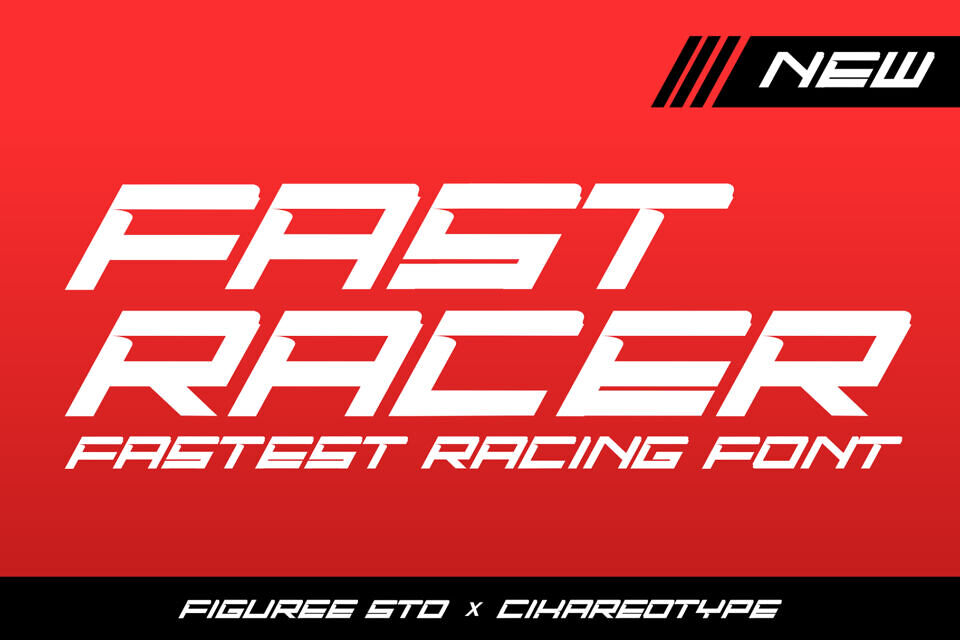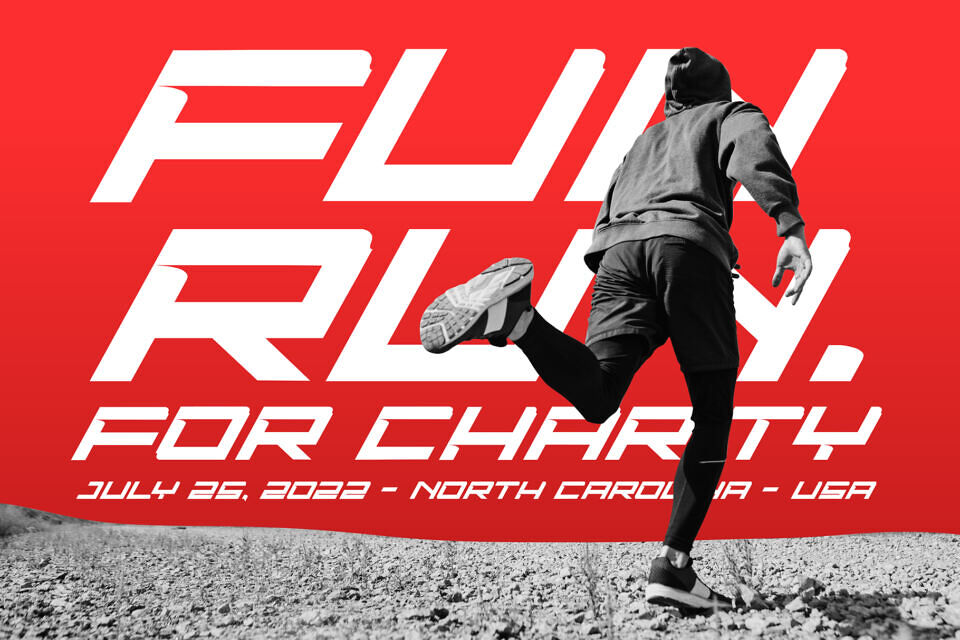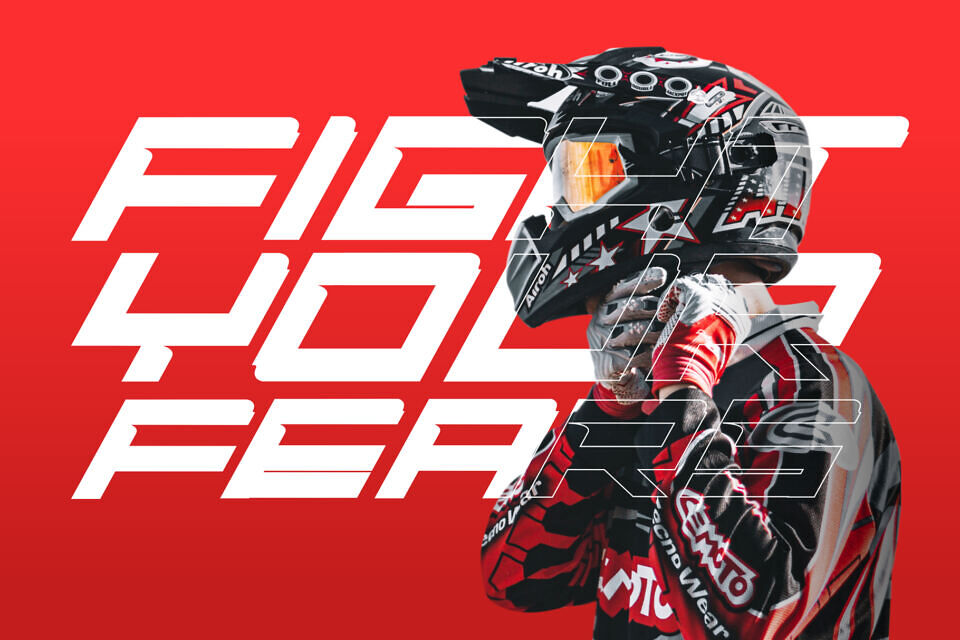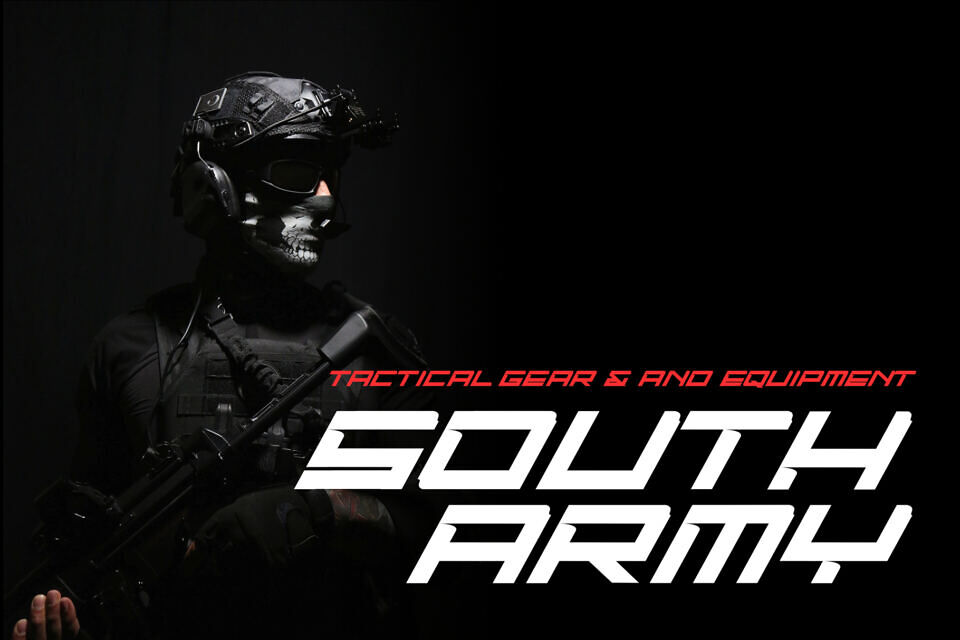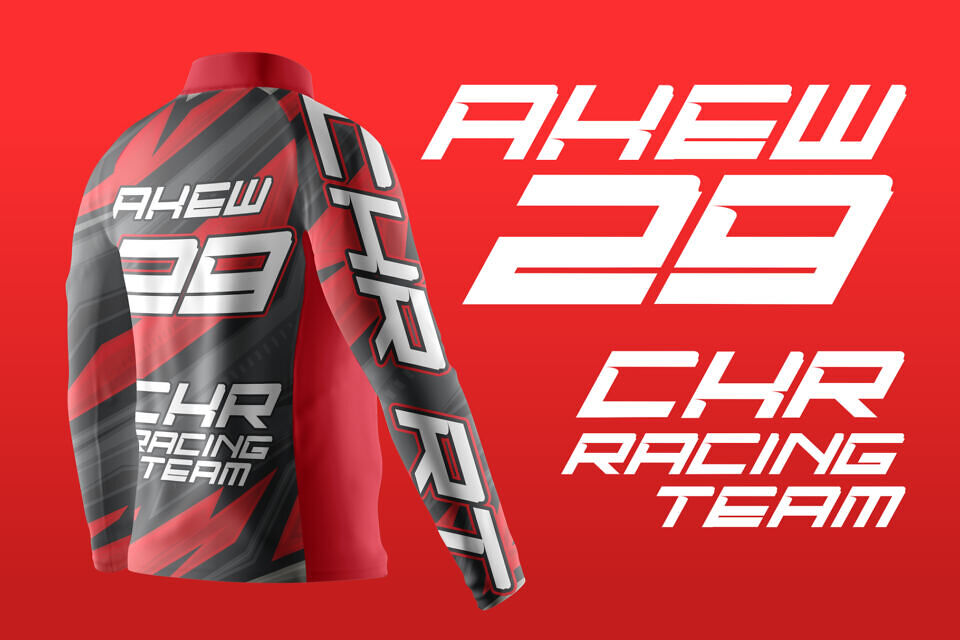
Fast Racer Font
Fast Racer is the fastest racing font crafted for designers who demand speed, precision, and visual impact. Inspired by motorsports and motion, this bold racing typeface energizes logos, posters, esports branding, and high-performance campaigns. Its sharp geometry, aggressive angles, and extended forms capture the thrill of velocity and competition.
Perfect for motorsport events, merchandise, and digital promotions, Fast Racer’s all-caps style and complete character set ensure power and clarity. Accelerate your creative projects with Fast Racer — the definitive fastest racing font for bold, dynamic design.